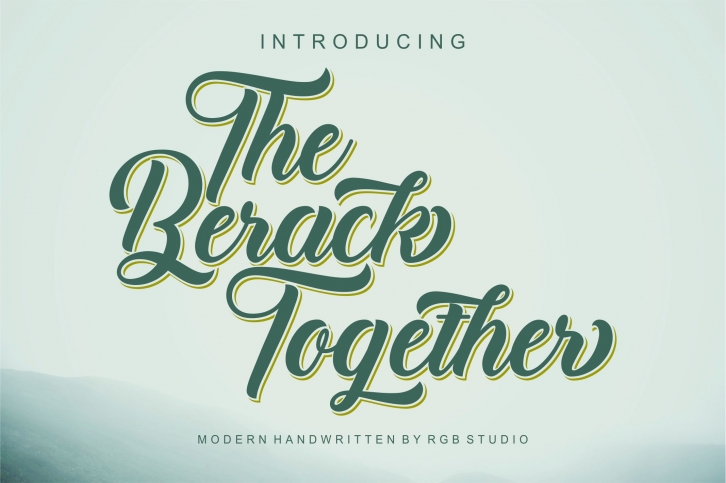
The Berack Together is a gorgeous, cursive and thick lettered handwritten font, crafted to give your headlines and logotype projects a stylish touch.The Berack Together is PUA encoded which means you can access all of the glyphs and swashes with ease!